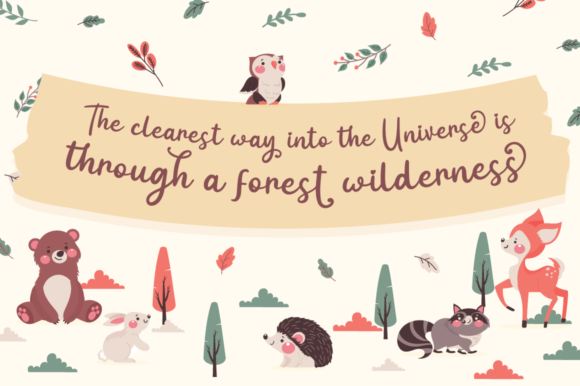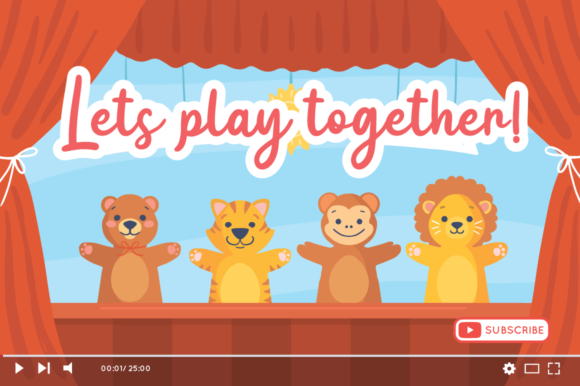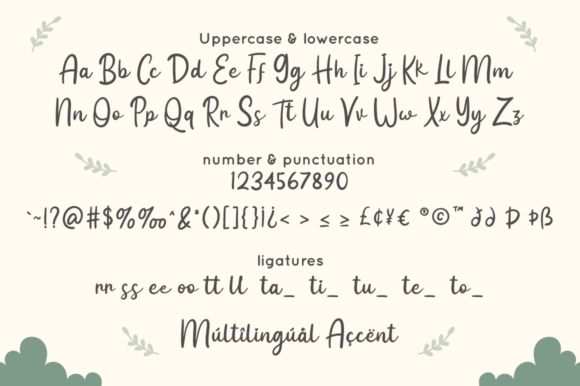
About Intima Politha Font
Intima Politha is a charming and versatile handwritten font that exudes warmth, romance, and joy. With its playful and friendly character, this font adds a delightful touch to any creative project.
The all-round nature of Intima Politha makes it a perfect choice for a wide range of designs. Whether you’re working on branding, logo design, invitations, stationery, social media posts, or any other creative endeavor, this font will bring your ideas to life with its unique charm.
With Intima Politha, you have the freedom to explore endless variations and experiment with different styles. The font’s flexible nature allows you to play with different letterforms, sizes, and spacing, creating custom looks that suit your specific design needs.
Intima Politha’s handwritten aesthetic gives it an organic and personal touch. The irregular letterforms and subtle imperfections add character and authenticity to your designs, making them feel warm and inviting. It’s as if each letter was handcrafted with love and care.
Embrace the romantic vibe of Intima Politha by using it for projects that evoke love, joy, and celebration. It’s perfect for wedding invitations, greeting cards, love notes, or any design that aims to convey a sense of romance and happiness.
The versatility of Intima Politha allows it to be paired with other typefaces effortlessly. Consider combining it with a clean and modern sans-serif font for a harmonious contrast, or pair it with a decorative script font to create a visually captivating composition.
Lastly, have fun with Intima Politha and let your creativity soar. Experiment with different layouts, colors, and applications to bring out the best in this charming font. Its flexibility and endless variations ensure that your projects will always stand out and leave a lasting impression.
So, embrace the sweet and joyful nature of Intima Politha and let it transform your project ideas into beautiful works of art. Let its warm and romantic vibe add a touch of magic to your designs and bring smiles to the faces of your audience.